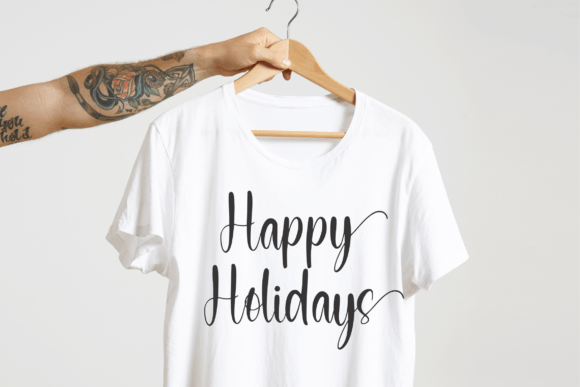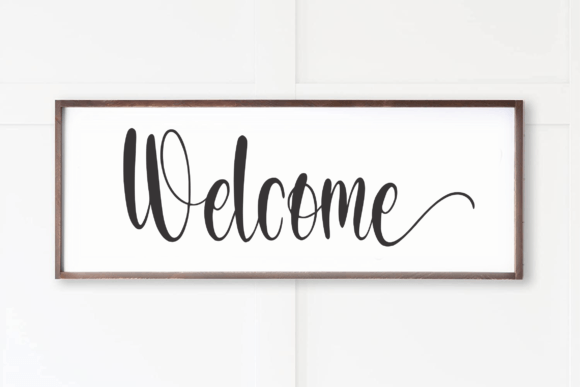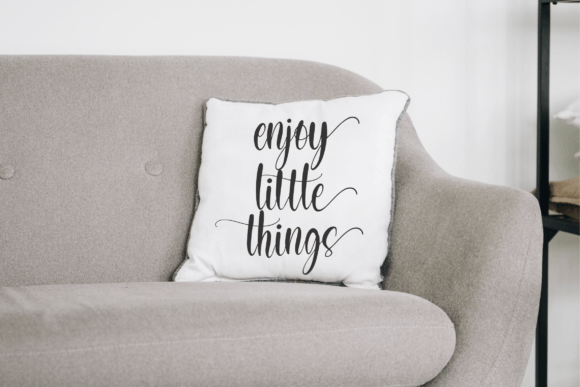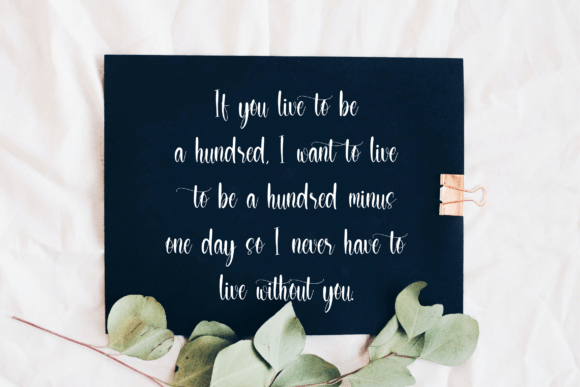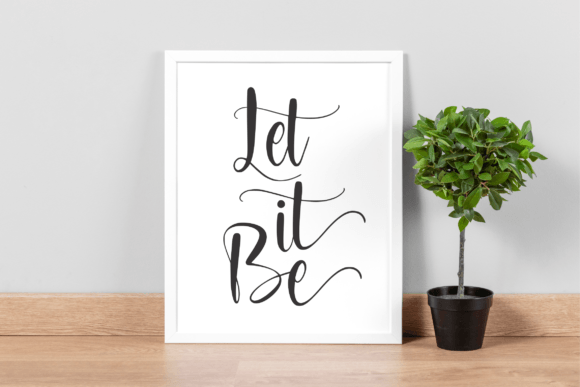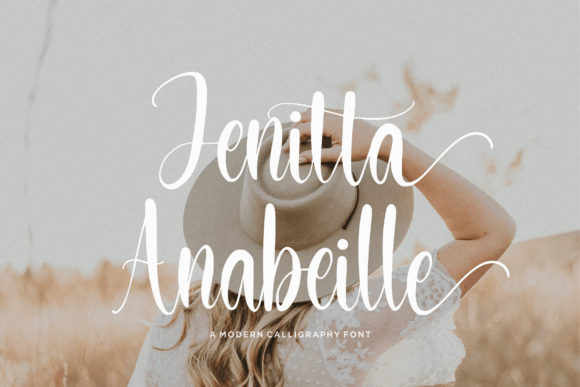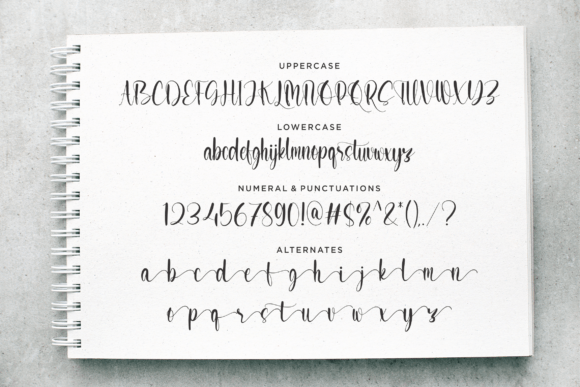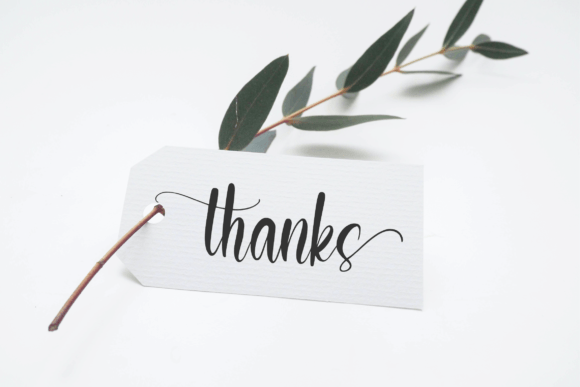
Littlesidney Font
About Littlesidney Font
Introducing “Littlesidney,” a modern calligraphy font that seamlessly blends elegance with contemporary style. This font is a versatile and expressive choice, well-suited for various design applications such as product packaging, branding projects, magazines, social media, weddings, and more. “Littlesidney” is crafted to add a touch of sophistication and beauty to your creative endeavors.
The modern calligraphy style of “Littlesidney” makes it a perfect fit for a range of design projects. Its elegant and flowing script adds a sense of grace and charm, enhancing the visual appeal of your text.
In product packaging, “Littlesidney” becomes a stylish and eye-catching choice. Its modern calligraphy form elevates the packaging design, making it more attractive and memorable for consumers.
For branding projects, this font adds a touch of sophistication to logos, business cards, and other brand identity materials. The elegant script creates a visual identity that is both contemporary and refined.
Magazines benefit from the versatility of “Littlesidney” as it adds a touch of elegance to headlines, captions, and pull quotes. The font’s readability ensures that the text remains accessible while maintaining a stylish appearance.
Social media posts, whether for personal or business use, can stand out with the use of “Littlesidney.” Its modern calligraphy form adds a distinctive and elegant touch to captions, quotes, and other text elements.
In weddings and other special events, “Littlesidney” becomes a beautiful choice for invitations, place cards, and other stationery. The font’s graceful script adds a romantic and personalized feel to the event materials.
In summary, “Littlesidney” is a modern calligraphy font designed to bring sophistication and beauty to a variety of design projects. Whether applied to product packaging, branding, magazines, social media, weddings, or other creative endeavors, this font is crafted to express words above the background in a stylish and elegant manner.